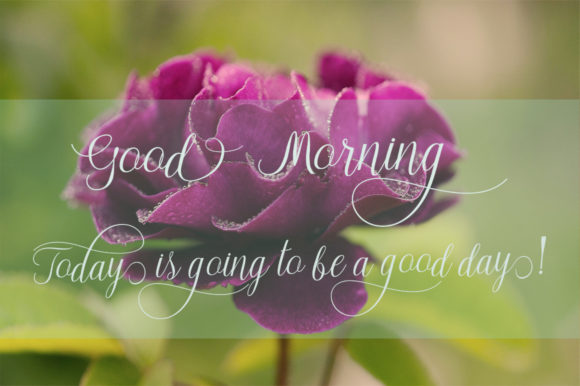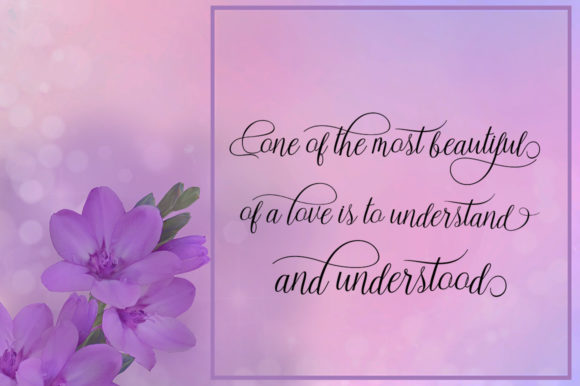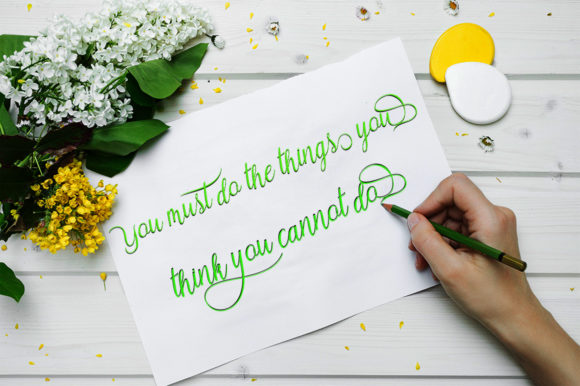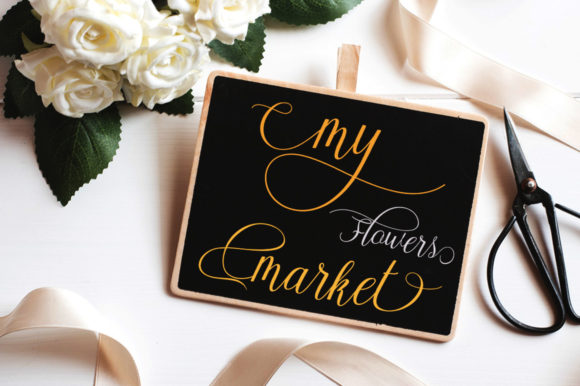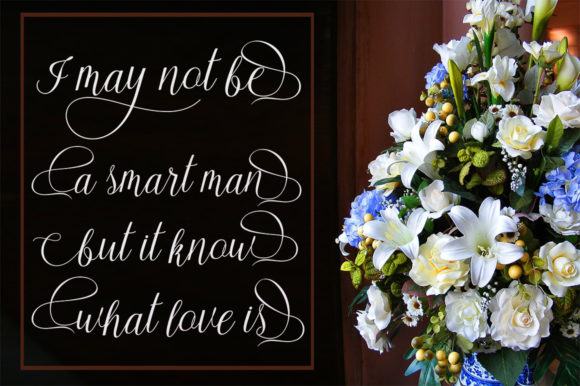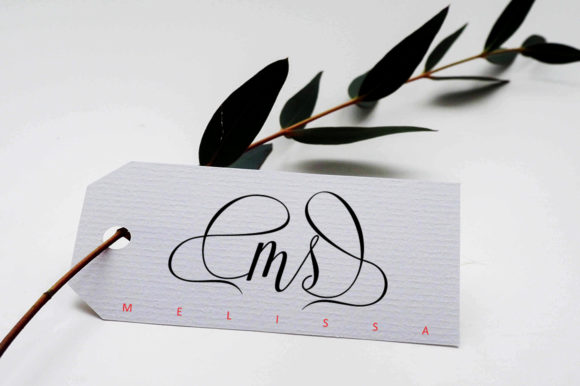
Introducing Bayttrun Script Font: Elevate Your Designs with Elegance
The Bayttrun is a modern script font with a smooth base line, designed to add a touch of sophistication and glamour to your creative projects. Its trendy and feminine style makes it perfect for designers and crafters looking to infuse their work with an elegant feel.
What Makes Bayttrun Script Font Special?
Bayttrun Script Font boasts a unique blend of modernity and classic charm. Its smooth baseline provides a fluid, connected look that is both visually appealing and highly legible. This font is meticulously crafted to ensure that it stands out in any design, whether you’re working on a branding project, a wedding invitation, or a fashion magazine.
Key Features of Bayttrun Script Font
- Modern and Feminine Style: The Bayttrun font embodies a contemporary, feminine aesthetic that is perfect for designs requiring a touch of elegance and grace.
- Smooth Baseline: The smooth, flowing baseline of the Bayttrun script font ensures a cohesive and harmonious look, making it ideal for body text and headings.
- Trendy and Versatile: From fashion and beauty to lifestyle and wedding designs, Bayttrun Script Font adapts seamlessly to various themes and styles.
- Elegant Feel: The font’s design elements work together to create an upscale, refined appearance that elevates any project.
Use Cases for Bayttrun Script Font
The versatility of Bayttrun Script Font makes it suitable for a wide range of applications. Here are some popular use cases:
- Branding and Logos: Create a lasting impression with a sophisticated brand identity that stands out.
- Wedding and Event Invitations: Add a touch of luxury and romance to your wedding or event invitations.
- Fashion and Beauty: Perfect for fashion magazines, beauty blogs, and product packaging that demands a stylish look.
- Stationery and Packaging: Elevate your stationery, product labels, and packaging with a dash of elegance.
Tips for Using Bayttrun Script Font Effectively
To maximize the impact of Bayttrun Script Font in your designs, consider the following tips:
- Pair with Complementary Fonts: Combine Bayttrun with clean sans-serif fonts for headings and body text to create visual contrast.
- Adjust Letter Spacing: Fine-tune letter spacing to enhance readability, especially in longer texts.
- Experiment with Colors: While Bayttrun looks stunning in black, experimenting with soft pastels or metallic colors can add a unique twist.
- Consider Font Size: Use Bayttrun in larger sizes for headings to make a bold statement, and opt for smaller sizes for body text.
Bayttrun Script Font is a powerful tool for designers and crafters aiming to infuse their projects with a modern, elegant vibe. Its smooth baseline, trendy style, and versatility make it an excellent choice for a myriad of design applications. By incorporating Bayttrun into your creative workflow, you can ensure that your designs exude sophistication, charm, and a professional edge.
Unlock the full potential of your designs with Bayttrun Script Font. Its elegant feel and modern aesthetic are sure to leave a lasting impression on your audience.